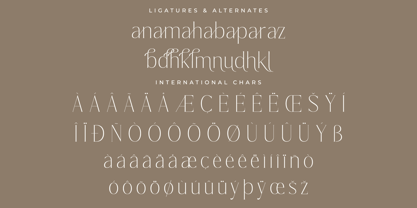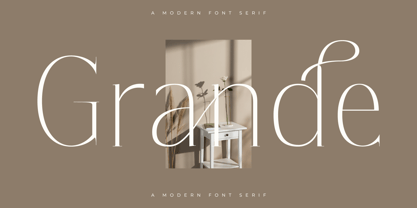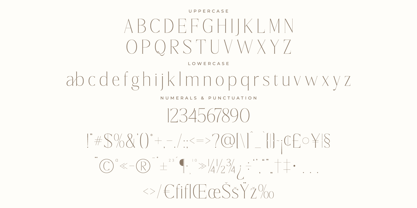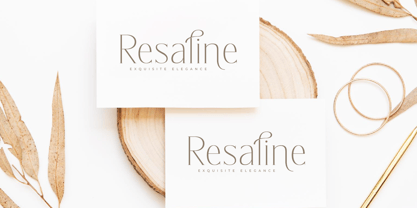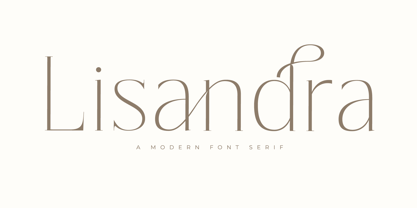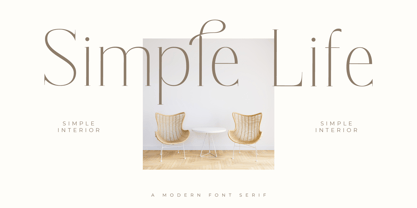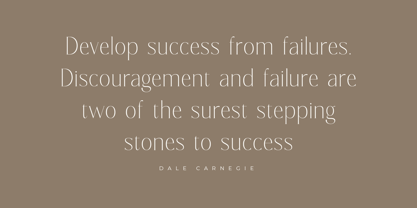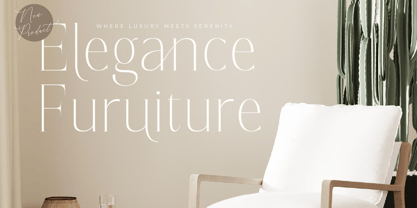
Lisandra
The Lisandra Font Family was designed by Heru Utama Putra and published by Letterena Studios. Lisandra contains 2 styles and family package options. More about this family
Proudly present Lisandra Typeface , created by Storytype,
A serif modern and classic typeface that has own unique style & modern look.
This typeface is perfect for an elegant & luxury logo, book or movie title design, fashion brand, magazine, clothes, lettering, quotes, and so much more.